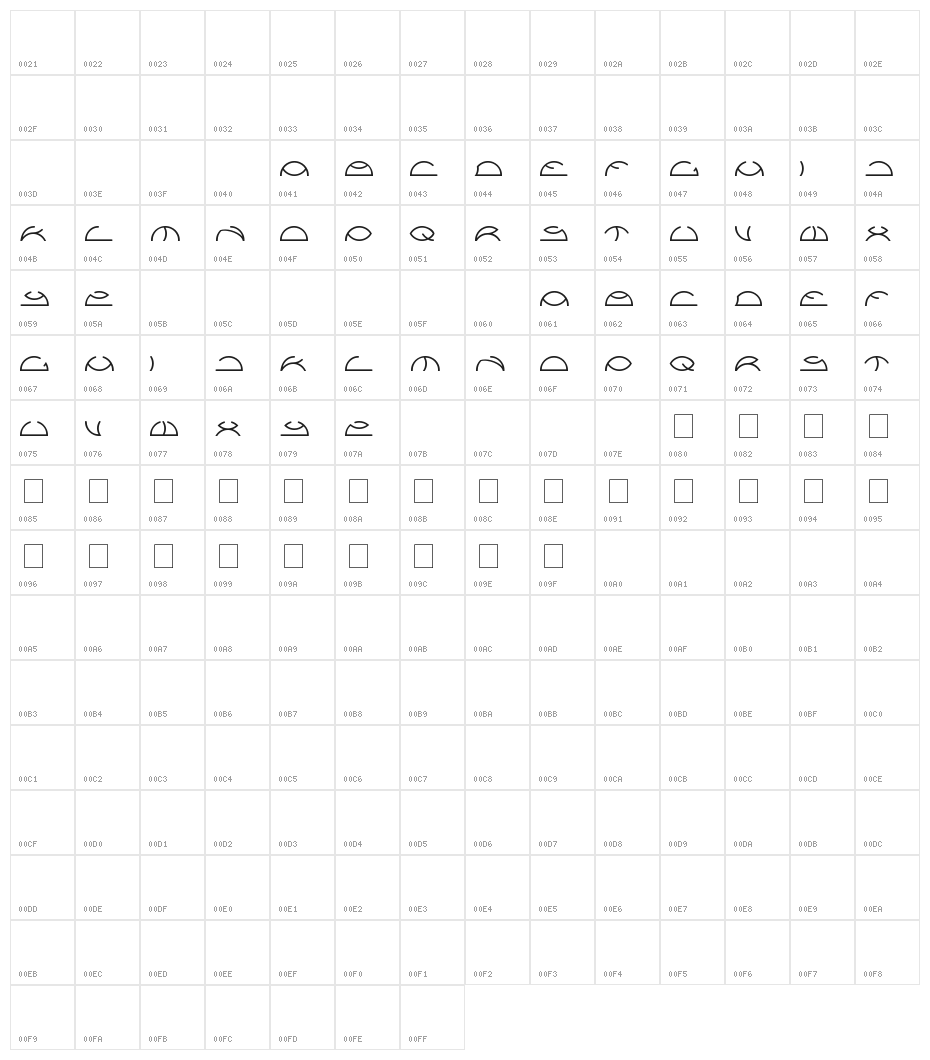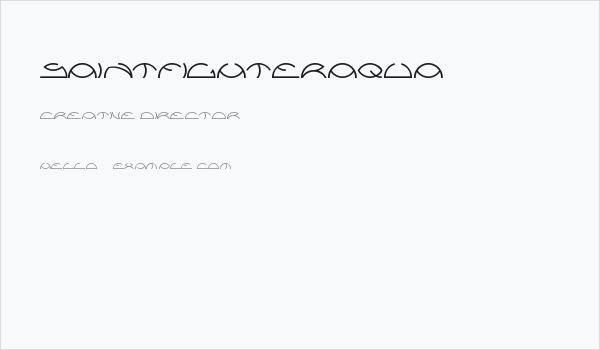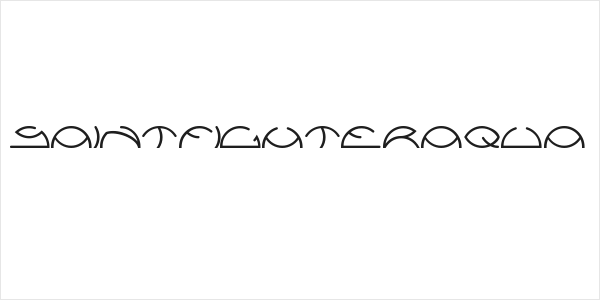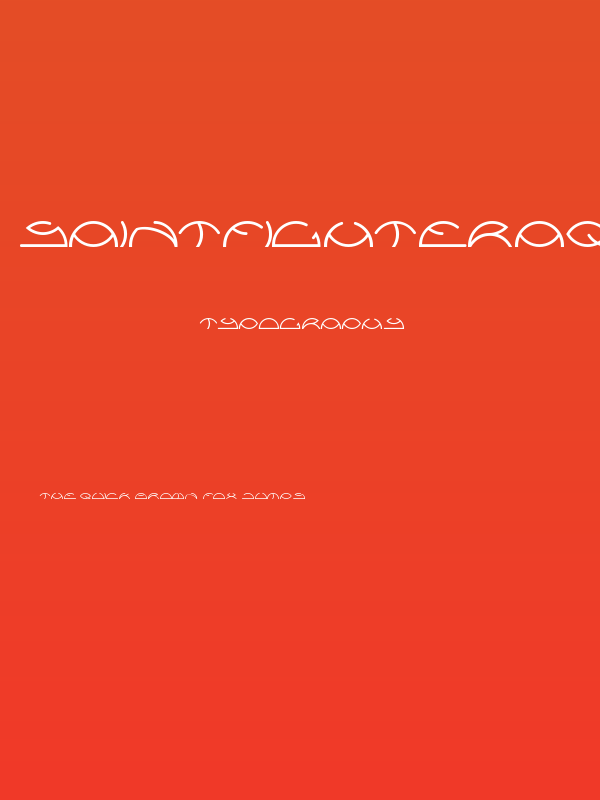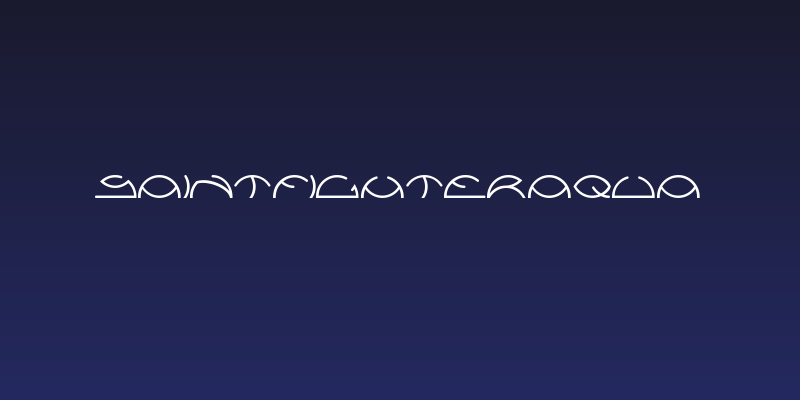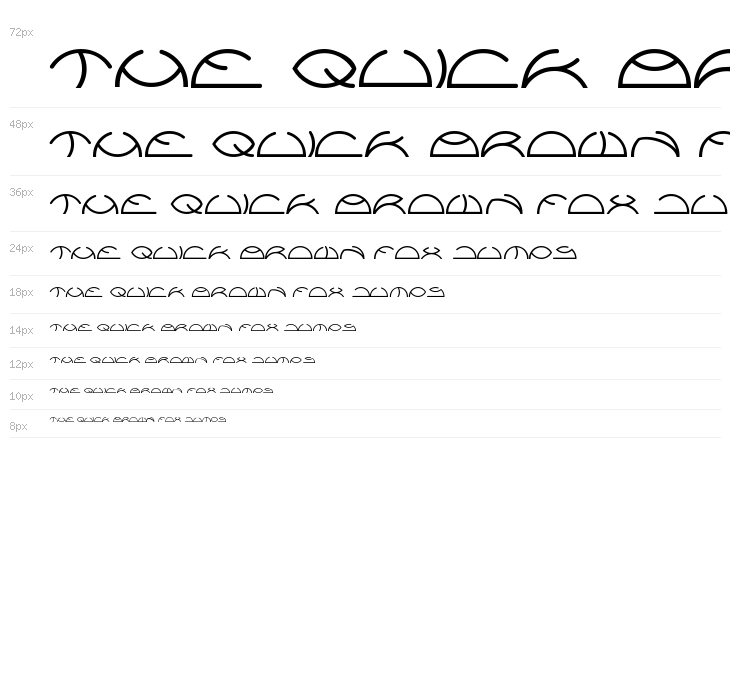
saintfighteraqua Font
saintfighteraqua Description
This font features a futuristic and abstract design, characterized by its unique geometric shapes and curves. The letters are composed of semi-circular and angular elements, creating a sense of movement and modernity. The design is minimalistic yet striking, with a consistent line weight that adds to its sleek appearance. The characters are evenly spaced, providing a balanced and harmonious look. This font is ideal for projects that require a contemporary and innovative touch, making it suitable for technology-related branding, sci-fi themes, and modern art displays.
| Use Case | Logos, Headlines |
| Proposed Projects | Ideal for technology branding, sci-fi themes, and modern art displays. |